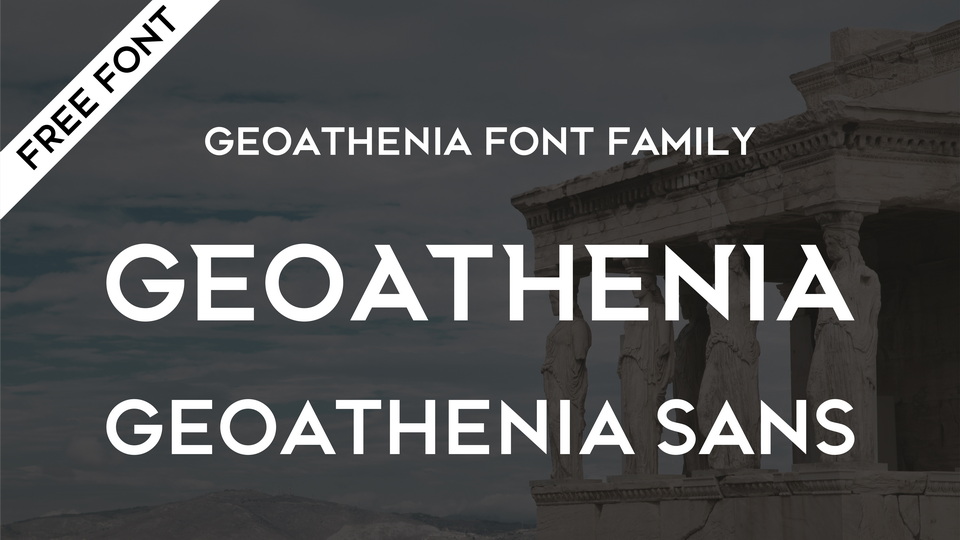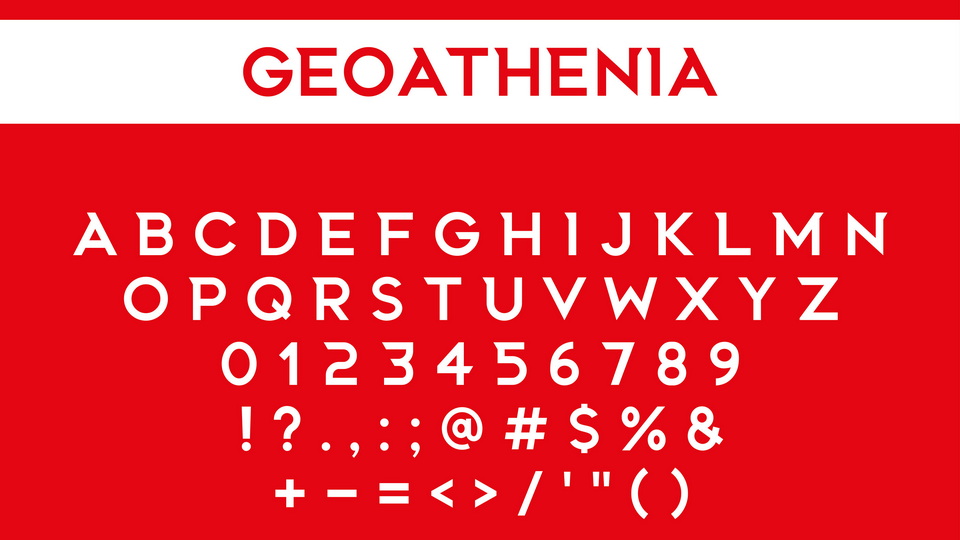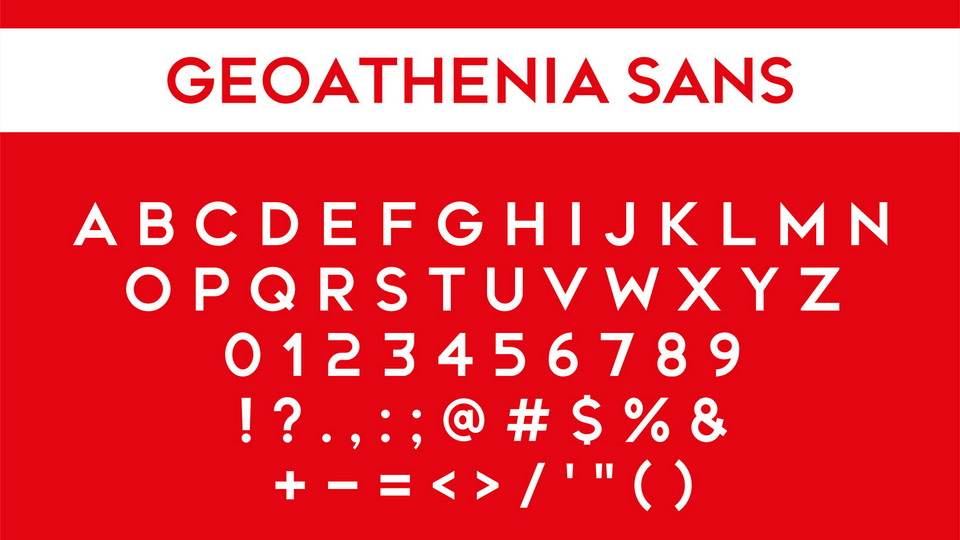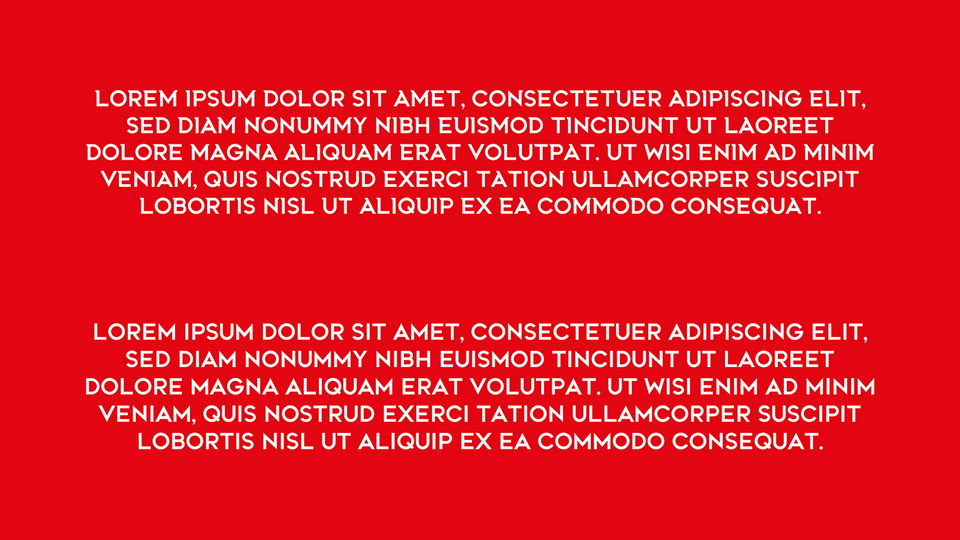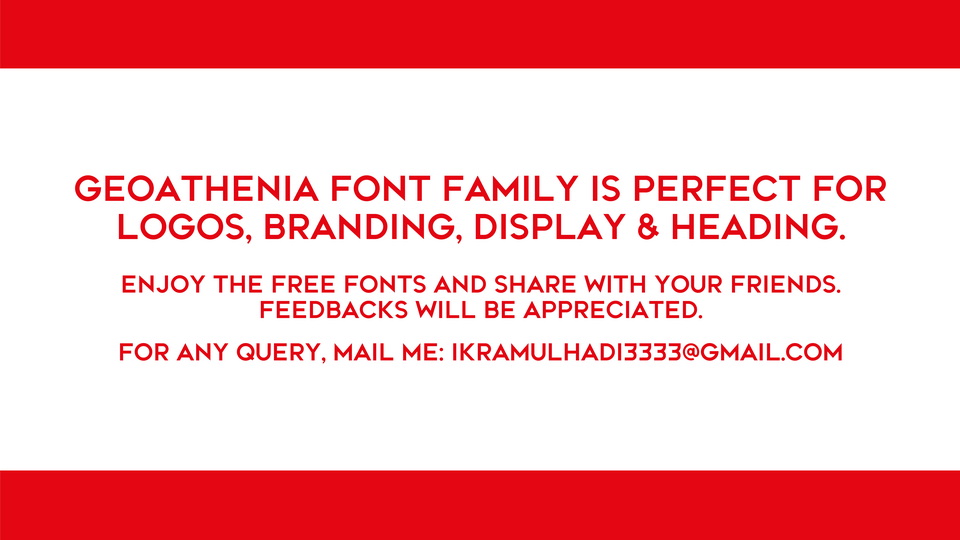
Geoathenia Typeface
Geoathenia is a modern geometric sans serif font. It comes with two styles – Sans and Display and has only uppercase letters with numbers and glyphs.
Geoathenia is perfect for logos, branding, display and headings.
Designed by: Ikramul Hadi Khan